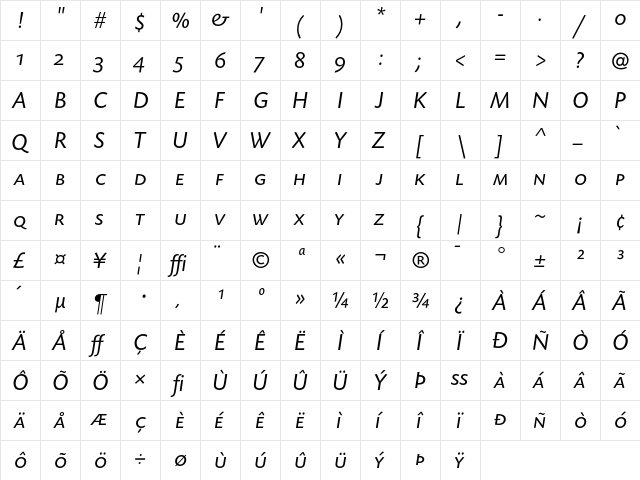
TodaySB-CapsIta Regular
Design Context for TodaySB-CapsIta Typeface
TodaySB-CapsIta takes a measured approach to typography — its balanced proportions and neutral character make it a reliable workhorse for both digital and print work.